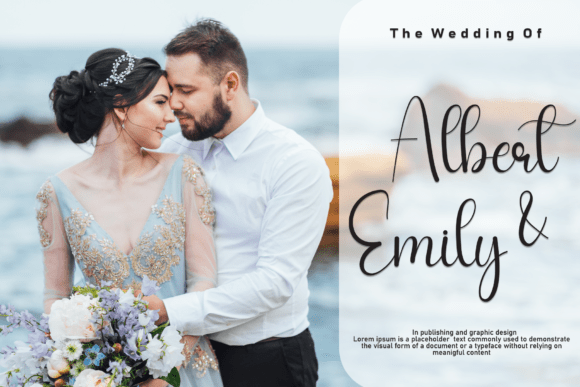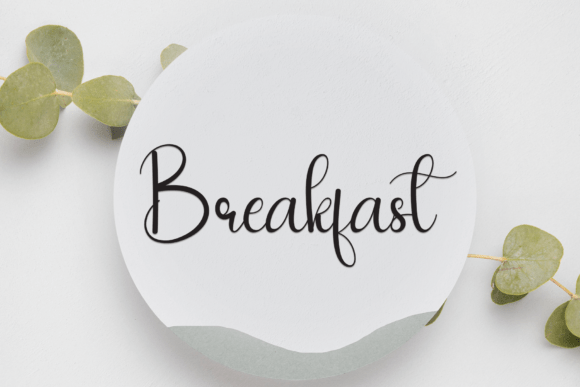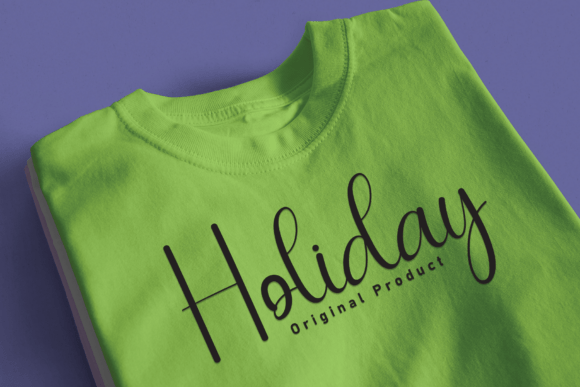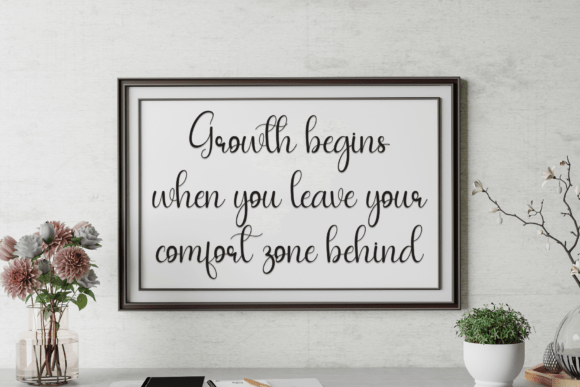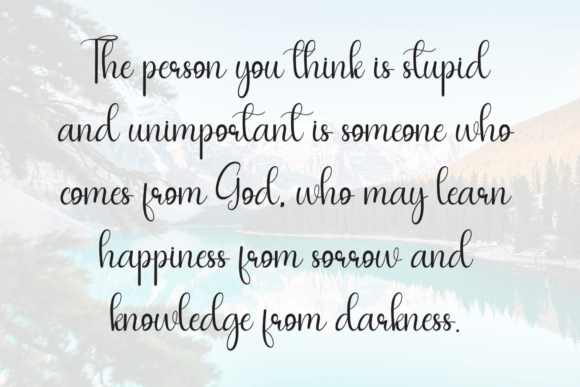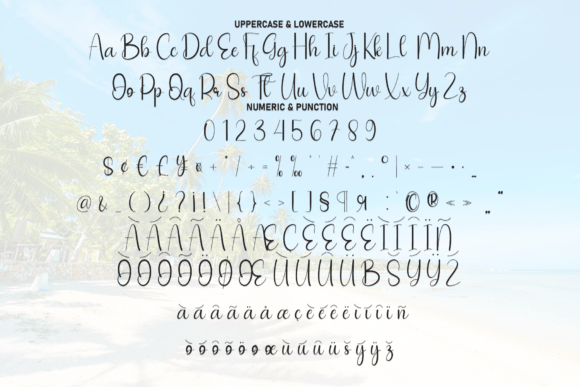
Introducing Beach Font: Add a Touch of Coastal Charm to Your Creative Projects
Are you looking for a font that can bring a burst of lively color schemes and a hint of fun to your artistic endeavors? Look no further than the “Beach” font, an intricately crafted typeface that is sure to captivate your audience. With its unmatched charisma and exclusive touch, “Beach” is the perfect choice for designers and crafters seeking to add a touch of coastal charm to their projects.
The Perfect Font for Creative Expression
“Beach” is more than just a font – it’s an experience. Its mesmerizing combination of fashion and refinement is sure to take your creative expressions to new echelons. Whether you’re working on wedding invites, greeting cards, or any other project that requires a hint of fun and sophistication, “Beach” is the perfect choice. Its unique and stylish design makes it an excellent addition to any design project, from DIY crafts to professional branding.
What Makes Beach Font So Special?
So, what sets “Beach” apart from other fonts? Here are just a few reasons why this font is a must-have for designers and crafters:
- Intricately crafted design: “Beach” boasts an intricately crafted design that is sure to impress. Its unique and stylish design makes it perfect for projects that require a touch of elegance and sophistication.
- Lively color schemes: “Beach” is designed to bring a burst of lively color schemes to your projects. Whether you’re working on a wedding invitation or a greeting card, this font is sure to add a pop of color and fun to your design.
- Exclusive touch: “Beach” carries an unmatched charisma that brings an exclusive touch to any project. Its unique design makes it perfect for designers and crafters seeking to add a touch of personality to their work.
- Versatile: “Beach” is a versatile font that can be used for a wide range of projects, from wedding invites and greeting cards to DIY crafts and professional branding.
How to Use Beach Font in Your Projects
Using “Beach” in your projects is easy. Here are a few tips to get you started:
- Pair it with complementary fonts: “Beach” can be paired with a variety of fonts to create a unique and stylish design. Try pairing it with a clean and simple font for a striking contrast.
- Experiment with colors: “Beach” is designed to bring a burst of lively color schemes to your projects. Experiment with different colors to find the perfect combination for your design.
- Use it for headings and titles: “Beach” is perfect for headings and titles, where its unique and stylish design can really shine.
Why Designers and Crafters Love Beach Font
Designers and crafters love “Beach” for a variety of reasons. Here are just a few:
- Easy to use: “Beach” is easy to use, even for those who are new to design. Its simple and intuitive design makes it easy to get started.
- High-quality design: “Beach” boasts a high-quality design that is sure to impress. Its unique and stylish design makes it perfect for professional branding and DIY crafts.
- Versatile: “Beach” is a versatile font that can be used for a wide range of projects. Its unique design makes it perfect for designers and crafters seeking to add a touch of personality to their work.
In conclusion, “Beach” is a must-have font for designers and crafters seeking to add a touch of coastal charm to their projects. Its intricately crafted design, lively color schemes, and exclusive touch make it perfect for wedding invites, greeting cards, and any project that requires a hint of fun and sophistication. With its versatility, ease of use, and high-quality design, “Beach” is sure to take your creative expressions to new echelons.